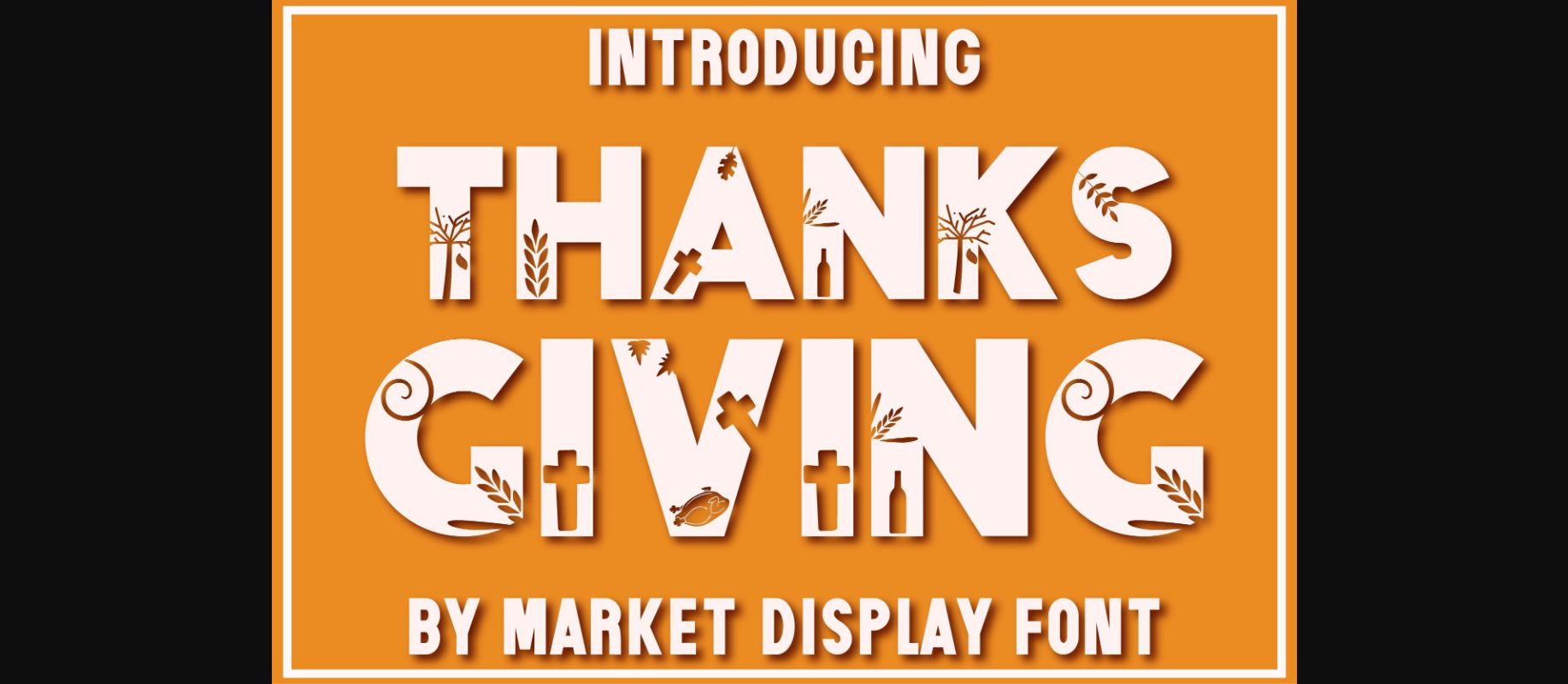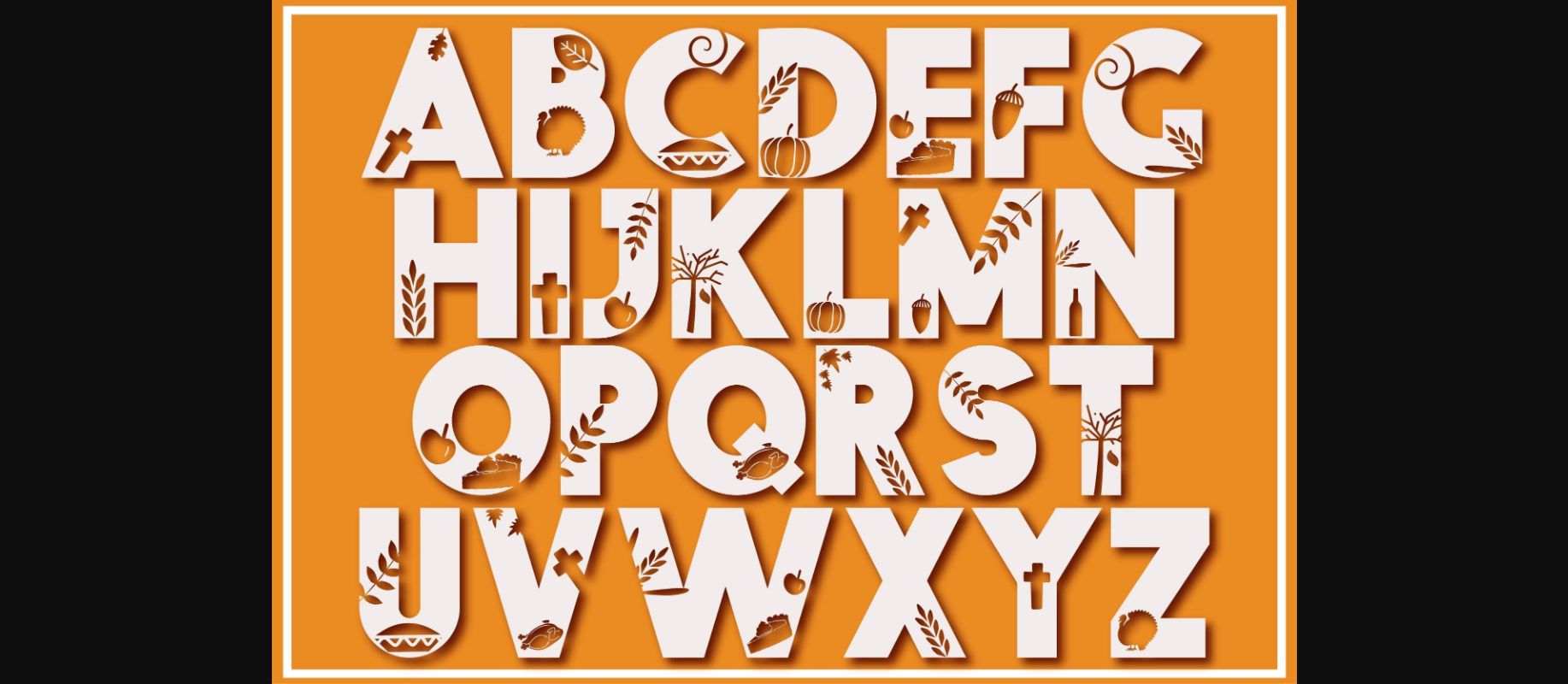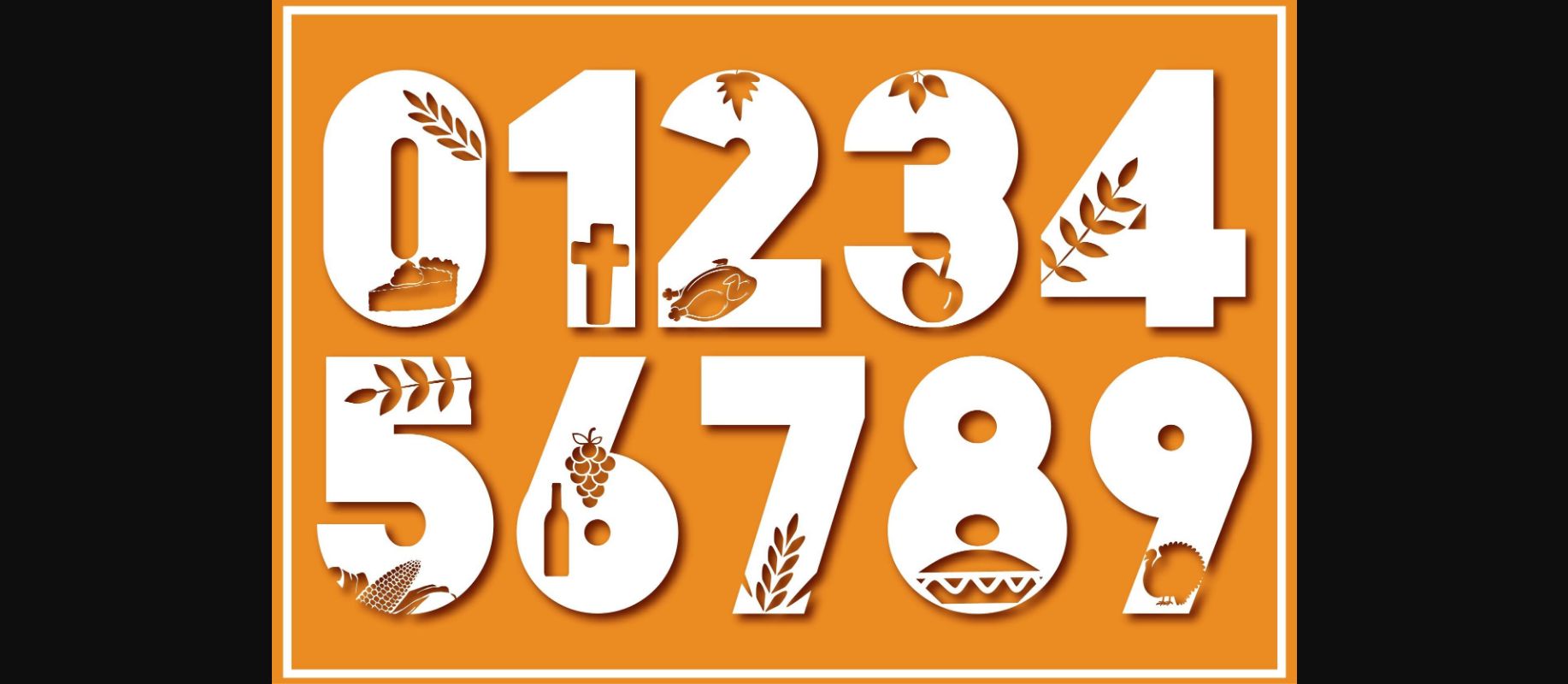
Thanksgiving Font
About Thanksgiving Font
Thanksgiving is a bold and chunky lettered display font. This font has a very festive and versatile feel, so add it to your favorite Thanksgiving designs and make them come alive!